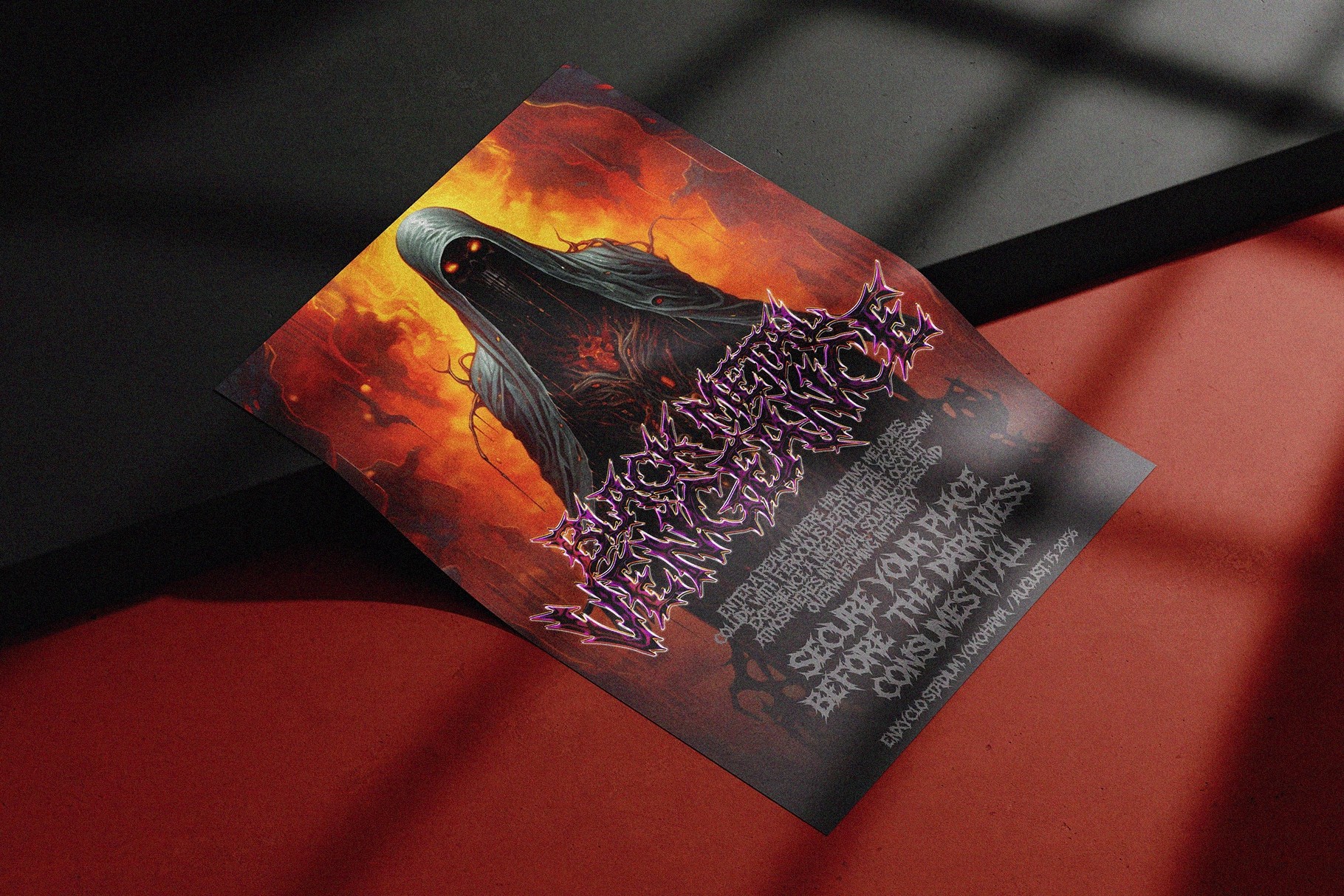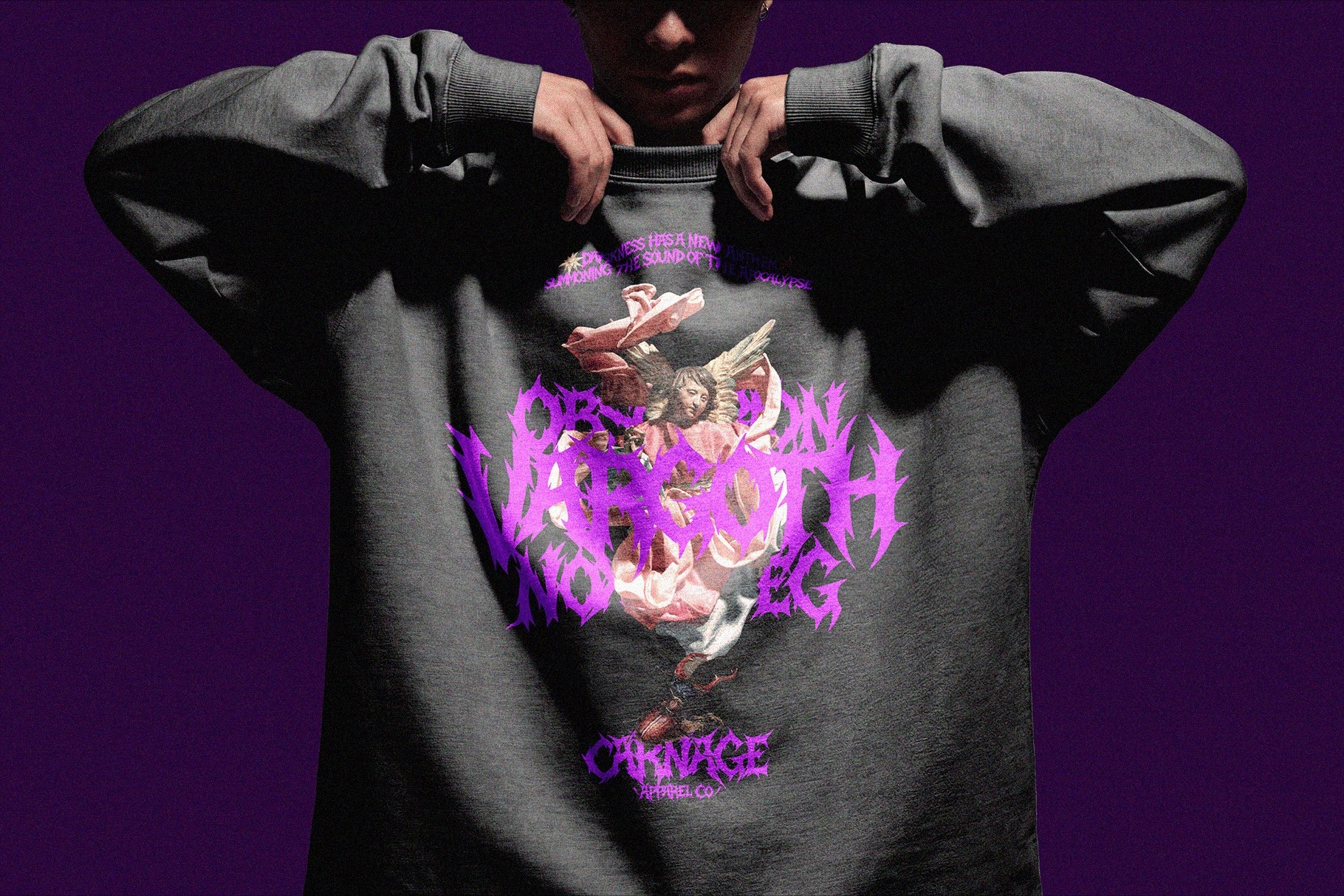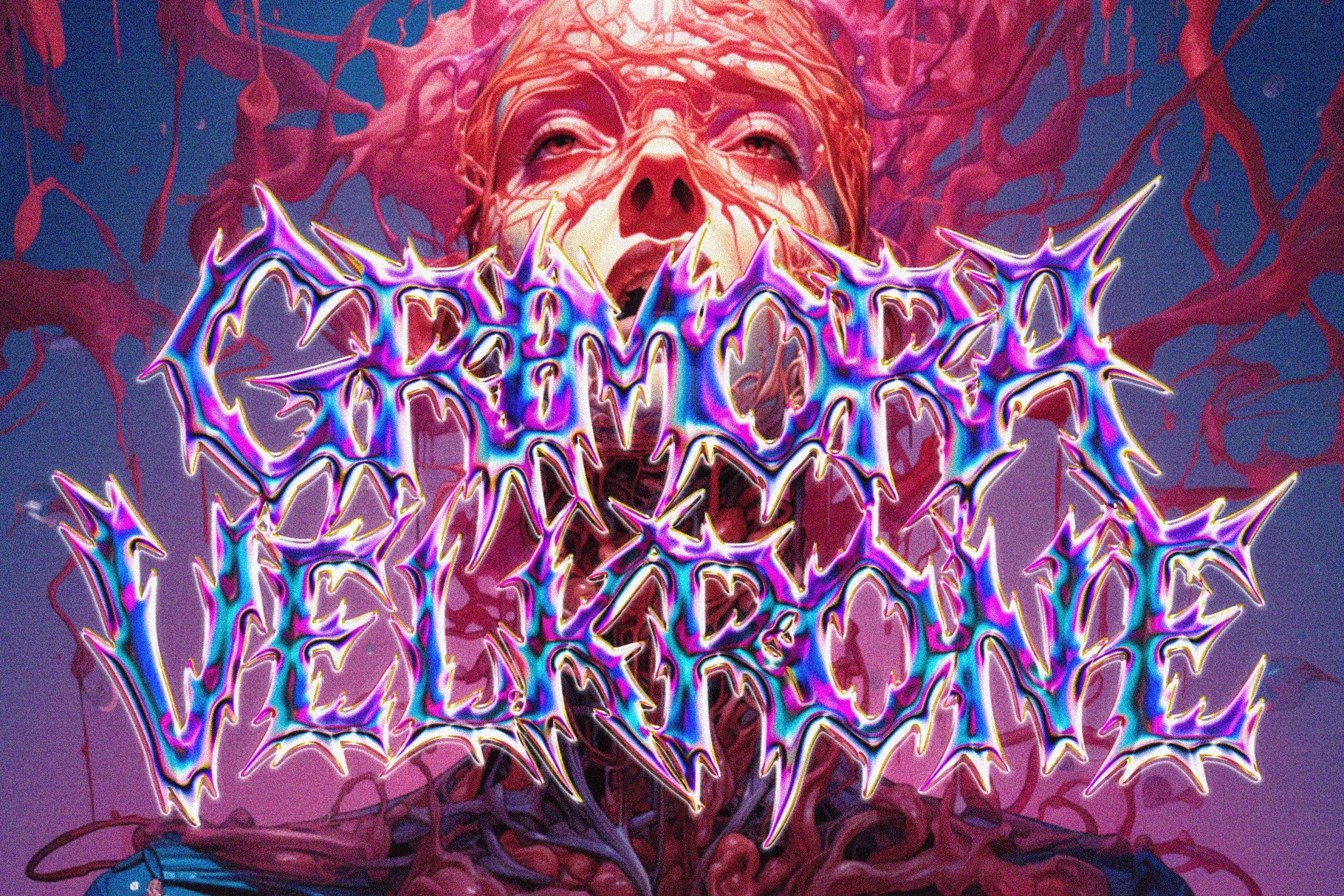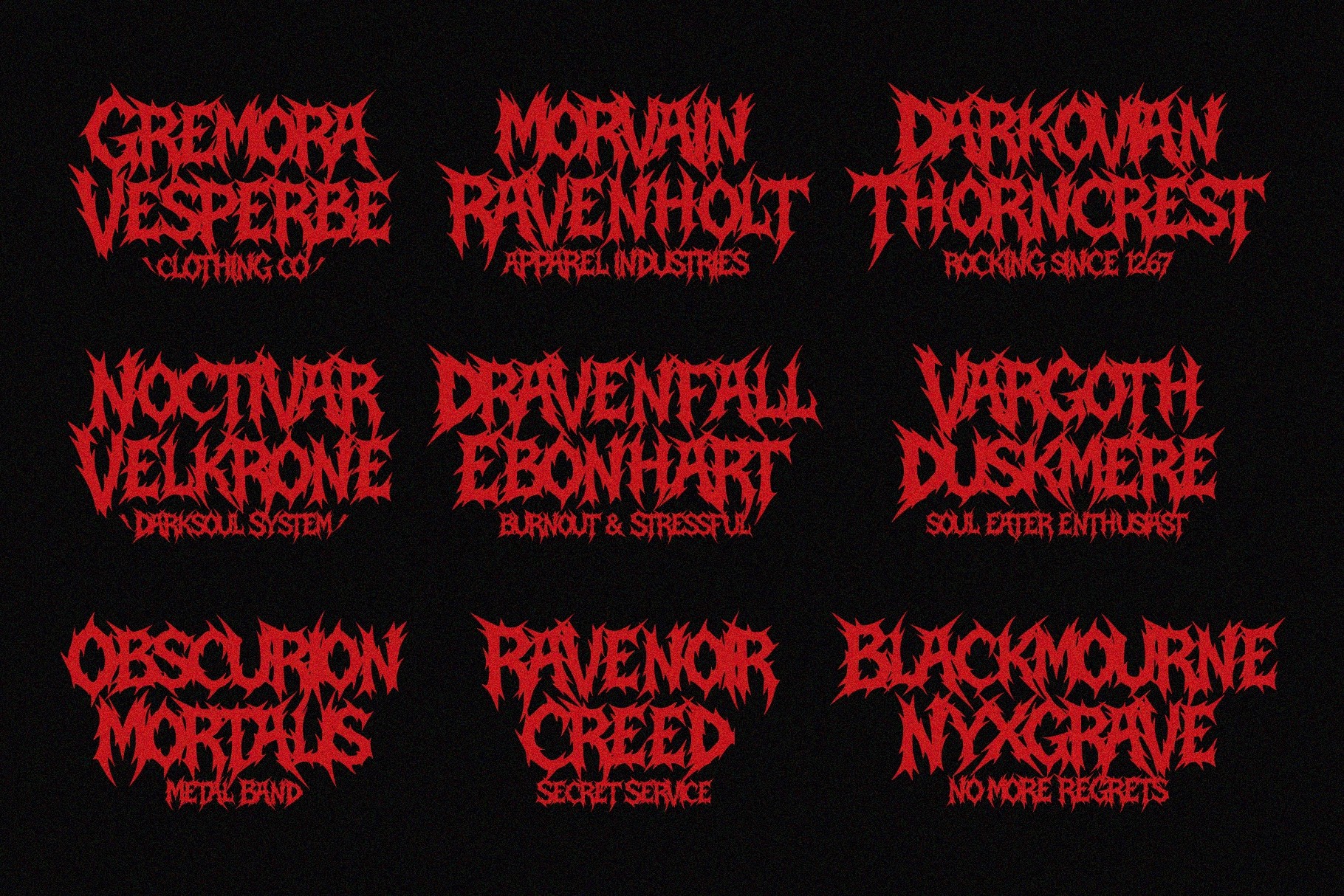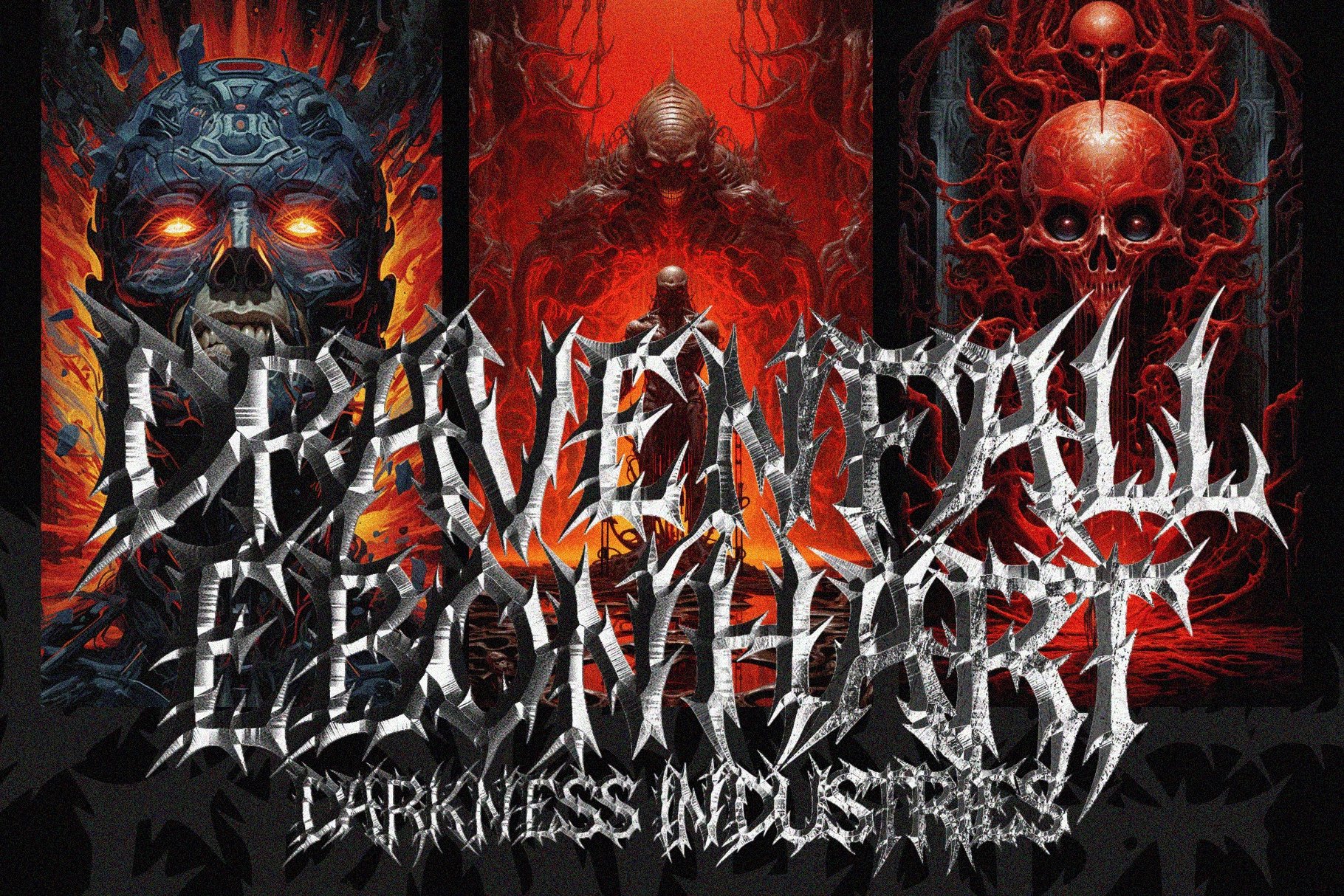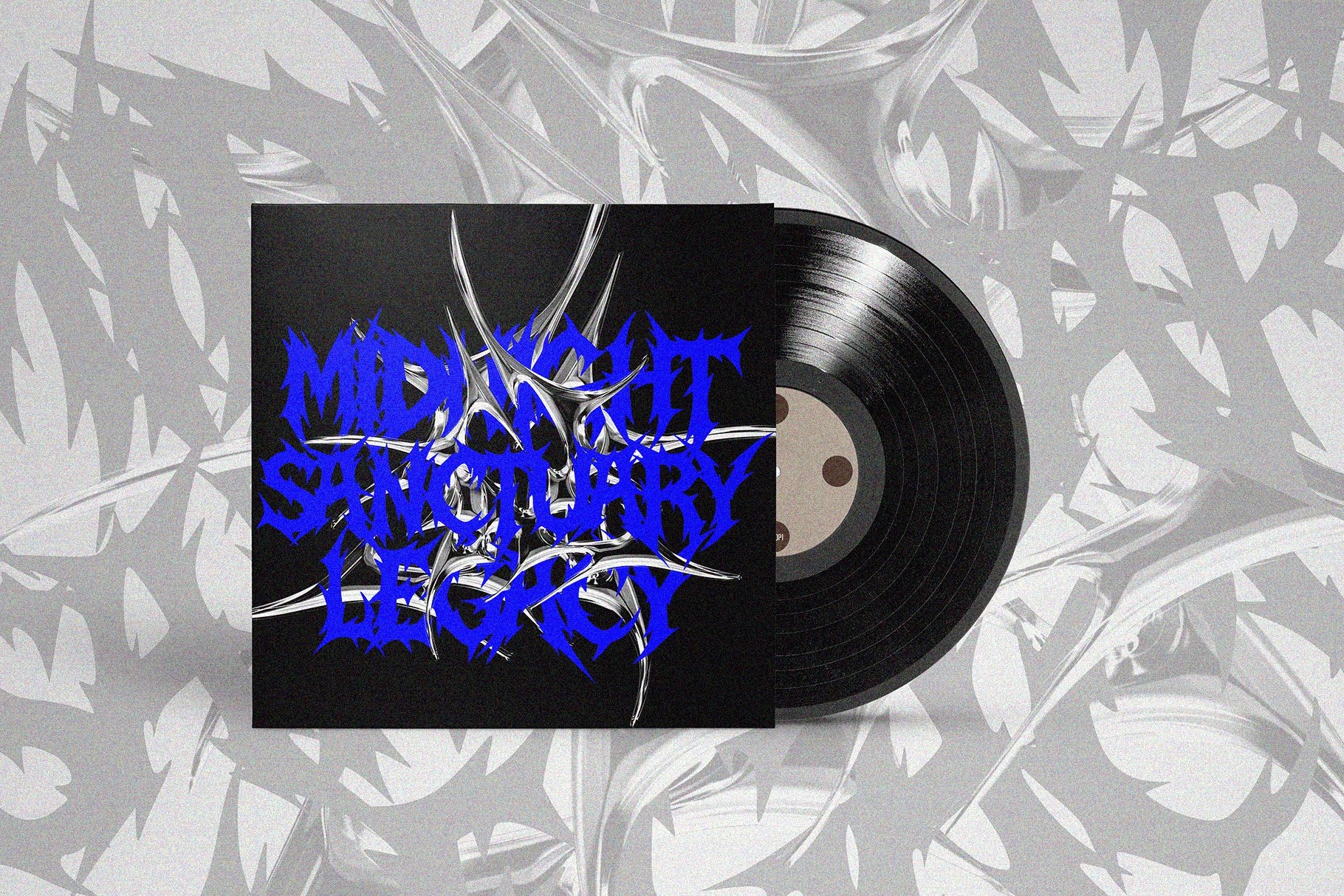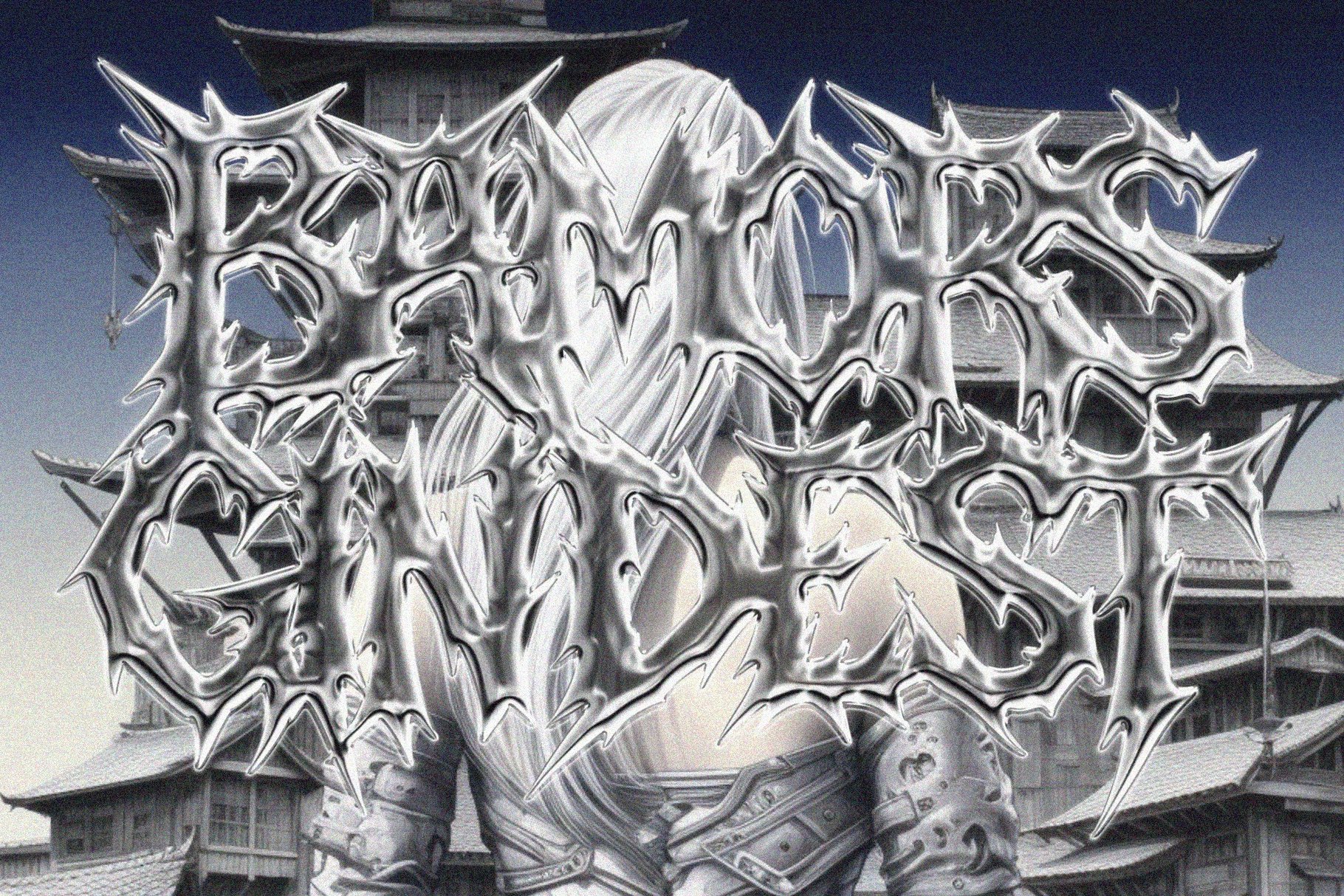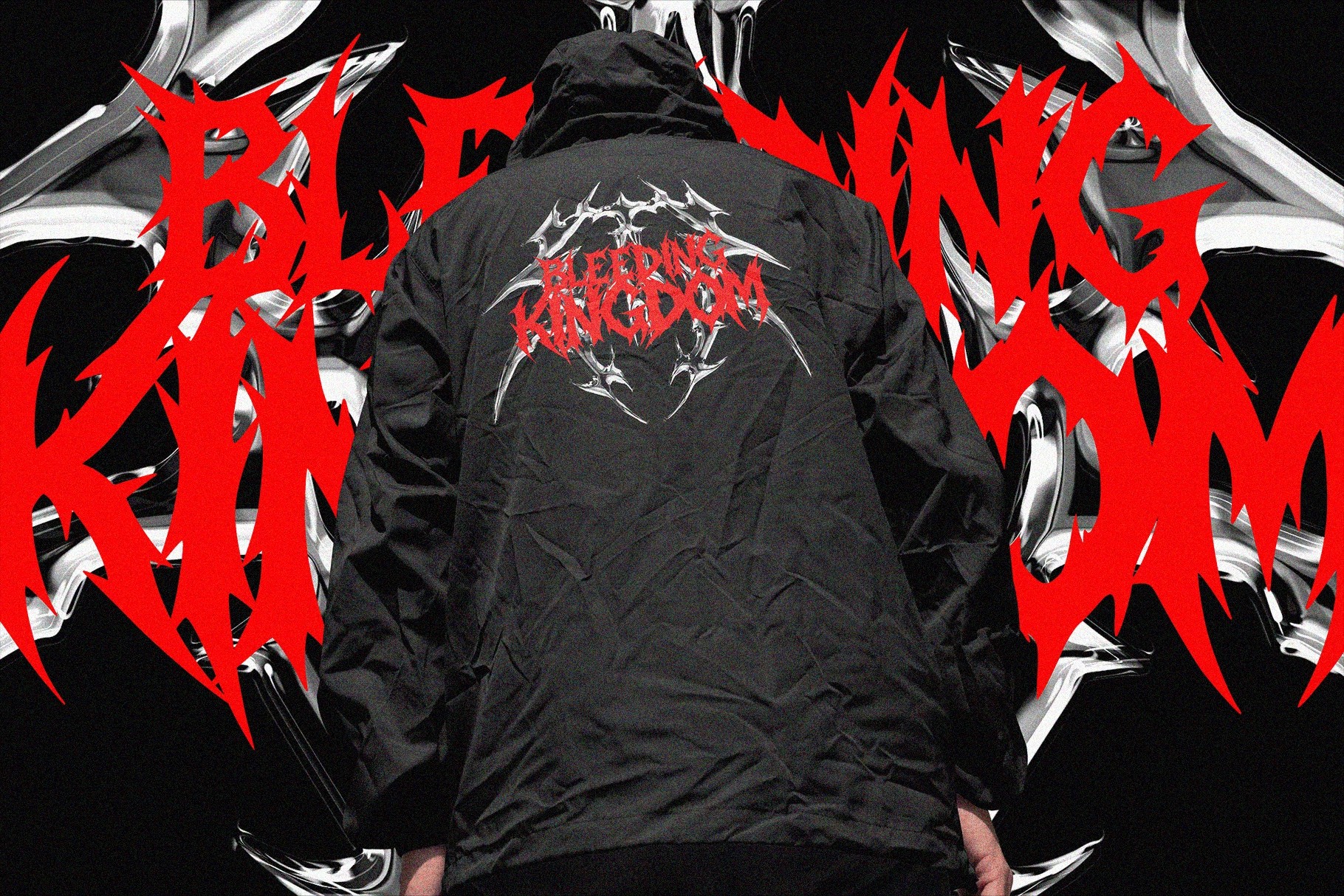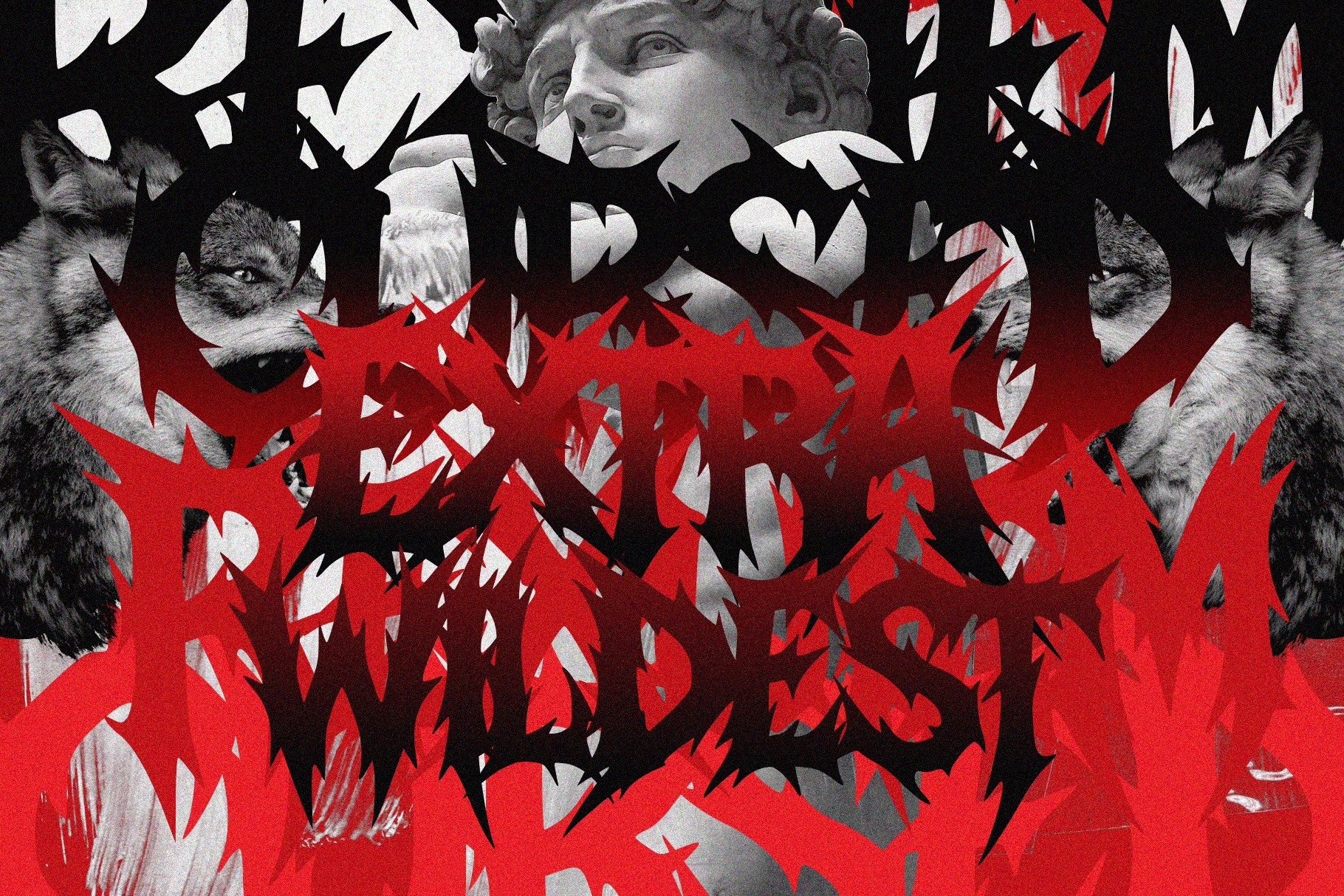
MIDNIGHT LEGACY — Black Metal Font
A metal display font with razor-cut letterforms, violent spikes, and dense gothic aggression. Its blackletter structure is pushed into harsher territory, with serrated edges and chaotic silhouettes that give every word a brutal, underground presence.
Midnight Legacy works for black metal logos, death metal merch, hardcore flyers, tattoo-inspired graphics, album covers, band marks, festival posters, horror titles, streetwear prints, zines, skate graphics, game artwork, and extreme music branding. It is built for short, forceful text where readability can take a hit and the attitude is the whole point.